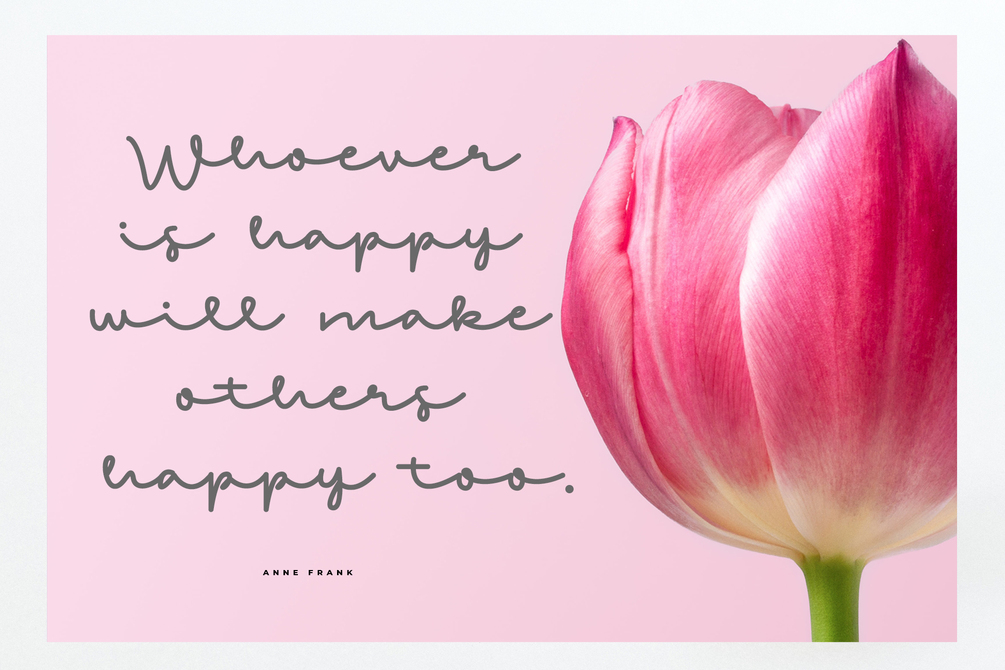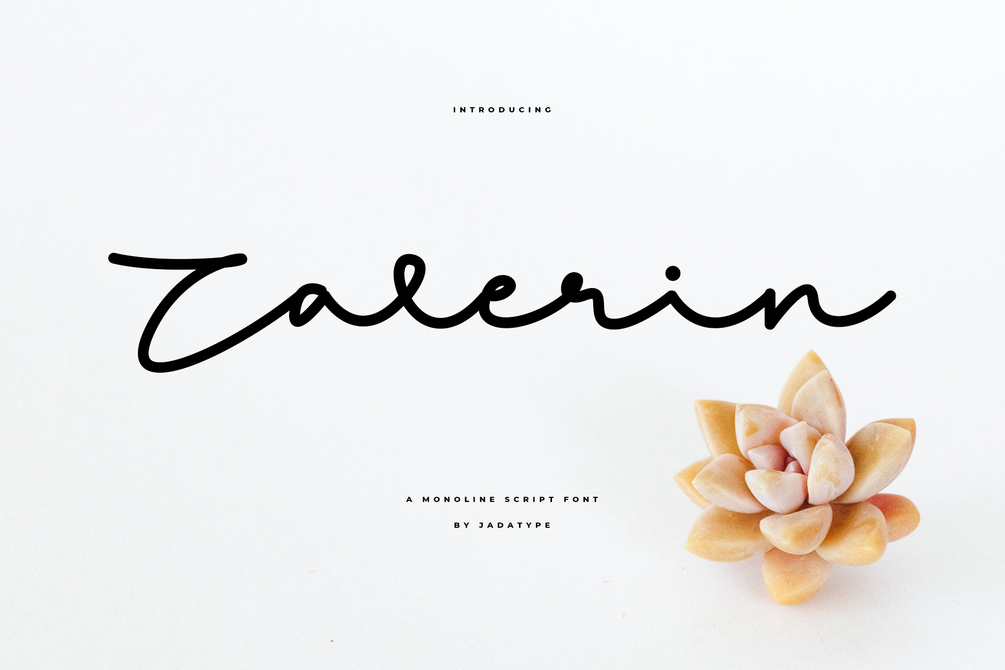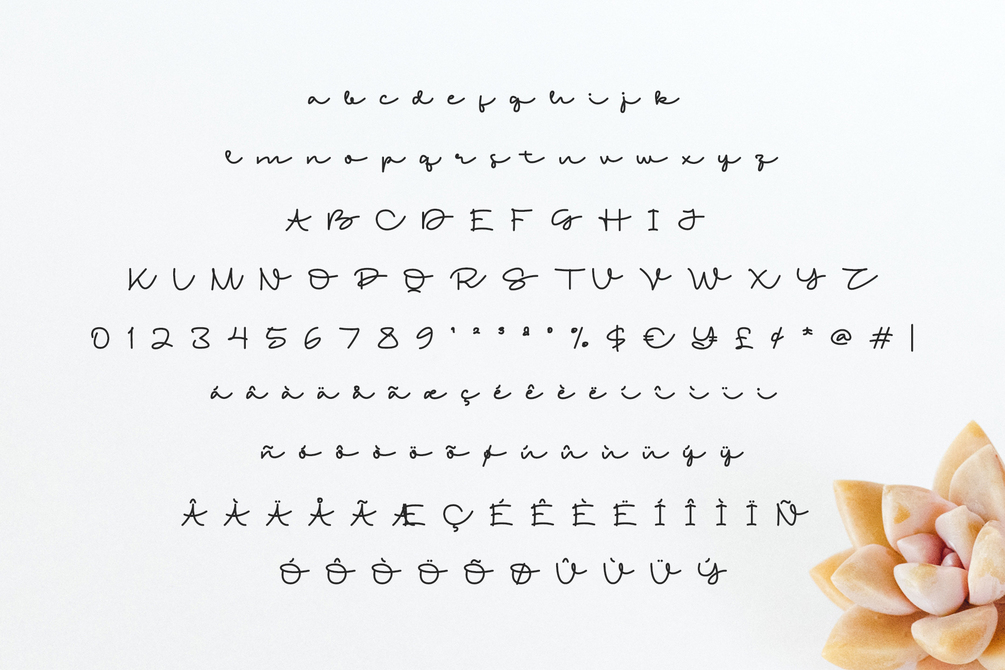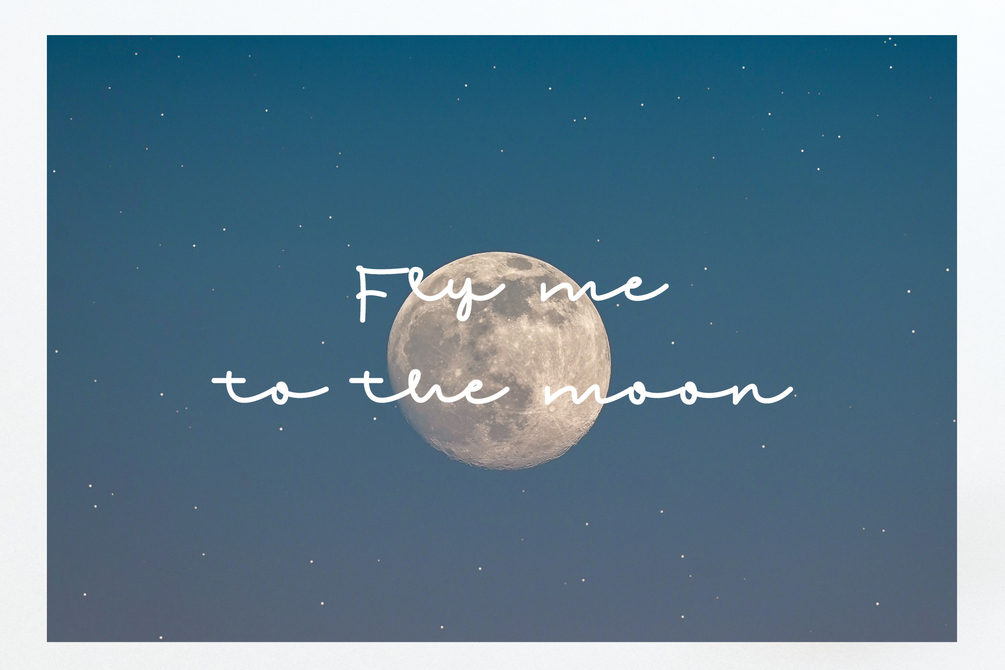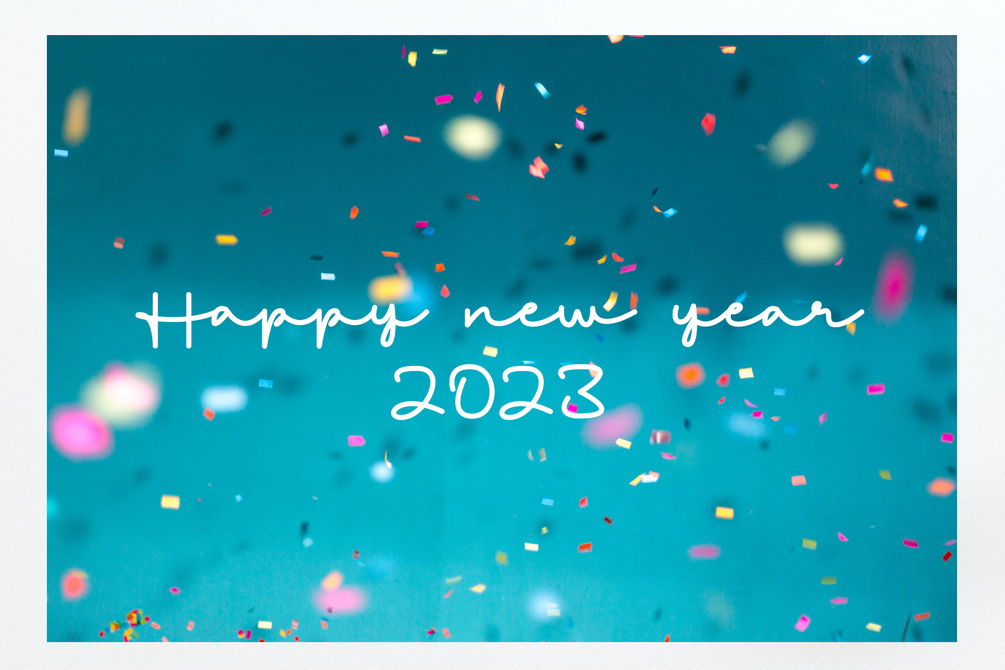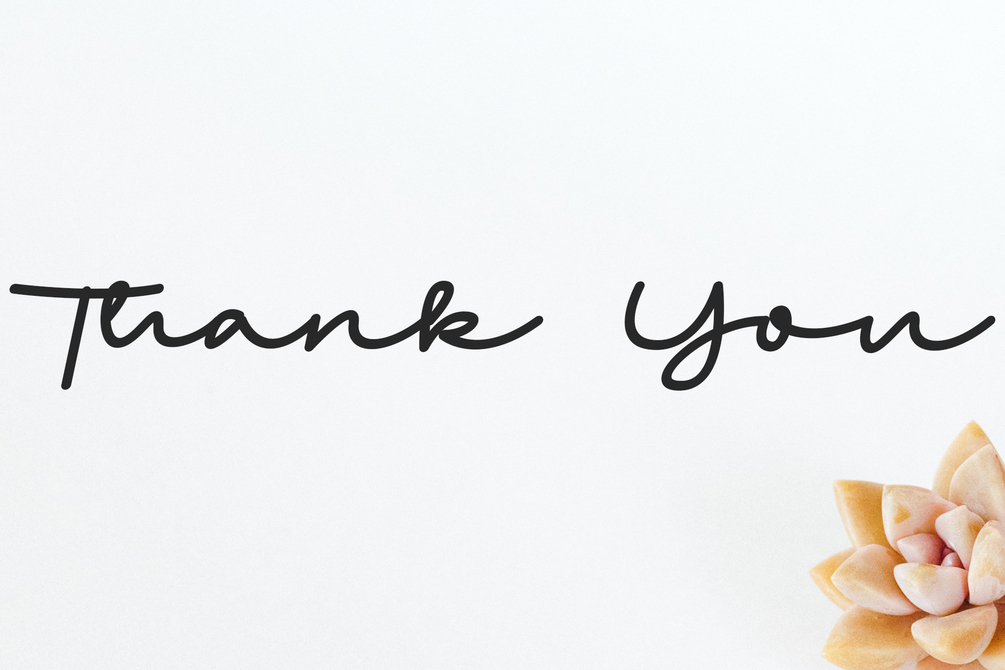
Zalerin Font
Zalerin is a script font with monoline style. suitable for music, invitation cards, greeting cards, product design, branding, logotype, social media and so on. contains standard English letters, numbers, punctuation, and several accents that support multilingualism.